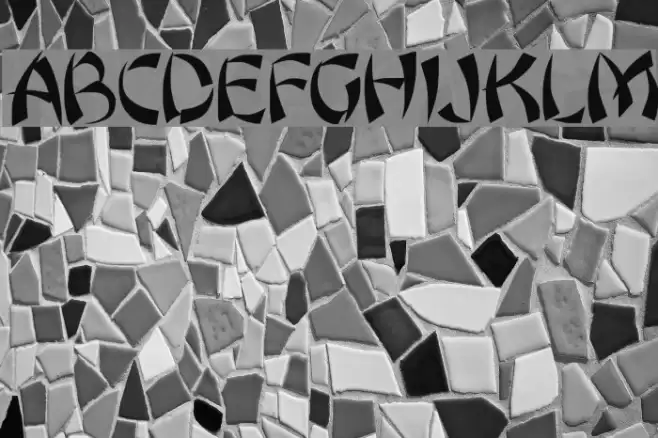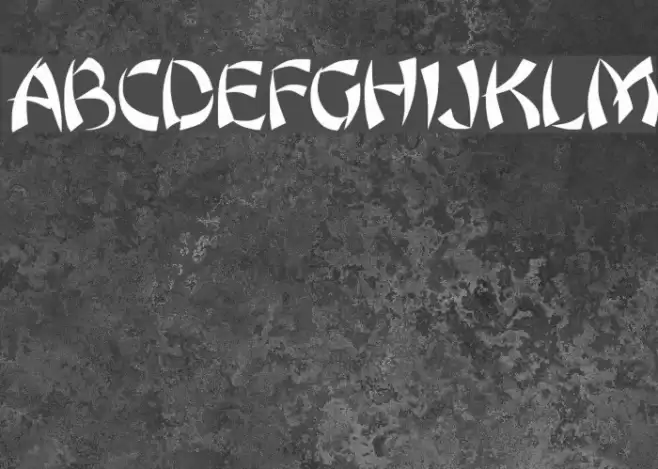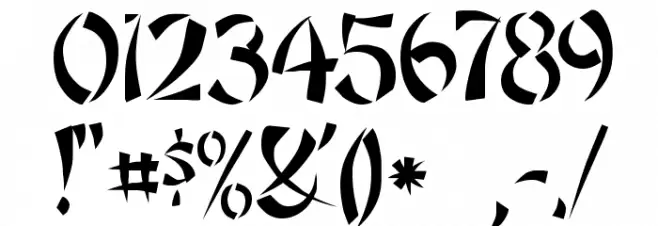
Rickshaw Font
Rickshaw Description
This font features a bold and dynamic style with sharp, angular edges and a distinctive flair. The characters are crafted with a high level of contrast, showcasing thick strokes that taper into fine points. This creates a sense of movement and energy, making it ideal for eye-catching designs. The uppercase and lowercase letters maintain a consistent style, while the numerals and special characters complement the overall aesthetic. The font's unique appearance lends itself well to creative and artistic projects, where a strong visual impact is desired.
A bold, angular font with high contrast and dynamic flair from Calligraphic fonts.
- Proposed Projects: Ideal for posters, album covers, branding, and artistic projects.
- Contrast: High